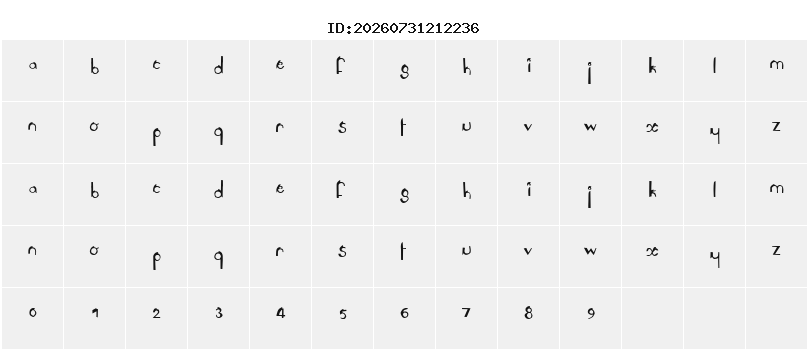
Le Antoine Preview
• Font Name: Le Antoine
About Le Antoine.ttf
Le Antoine.ttf is a modern, elegant sans-serif font designed for ultimate readability and visual harmony. Perfect for branding, headlines, web design, and print materials.